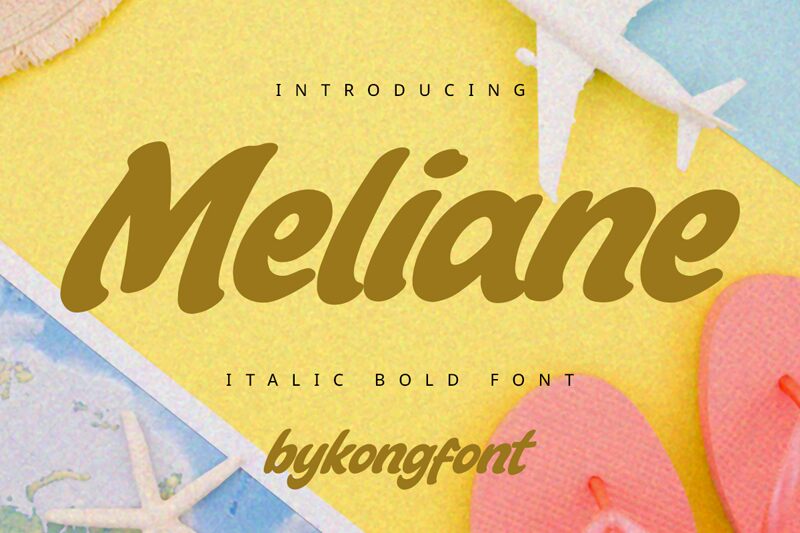
Meliane font designed by Kong Font is a free script font designed for personal use. This curved flowing typeface seamlessly combines elements of modern and elegant style for the creation of smooth projects that require a fresh appearance. The cohesive and stylish font characters strike the perfect balance between casual and friendly, making Meliane well-suited for contemporary applications in branding and advertising.
Curved and flowing, Meliane can be used in designs where connection is key. Connect the name of the bride and groom for wedding invitations, and use its modern and stylish characters to capture the feel of designer blogs, social media posts, and online shops. Its friendly nature is just what you need to gain customers’ trust, and creating a brand for organic foods and cosmetics using Meliane will bring the whole design one step closer to its audience.